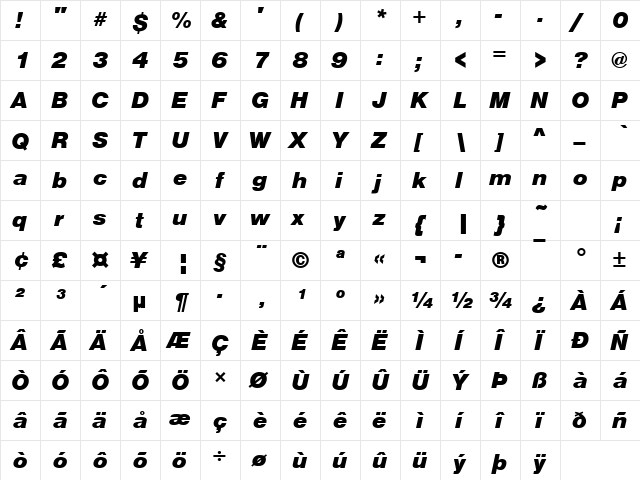
NimbusSanTBla Italic
Design Context for NimbusSanTBla Typeface
NimbusSanTBla is a composed and adaptable typeface that performs quietly and consistently across a wide range of design contexts. Its italic angle brings a sense of urgency and motion to the letterforms.
Pro Tip: Try NimbusSanTBla for annotation and caption copy alongside an upright companion — the contrast in angle creates a dynamic but ordered typographic system.